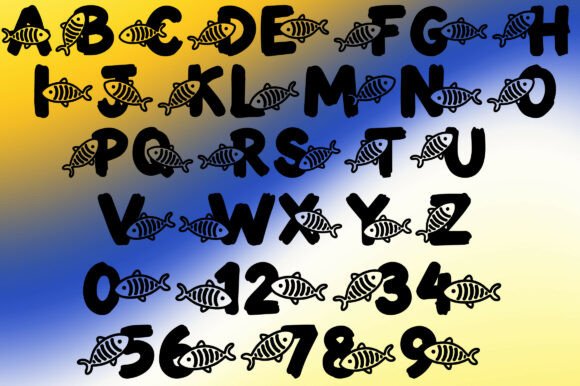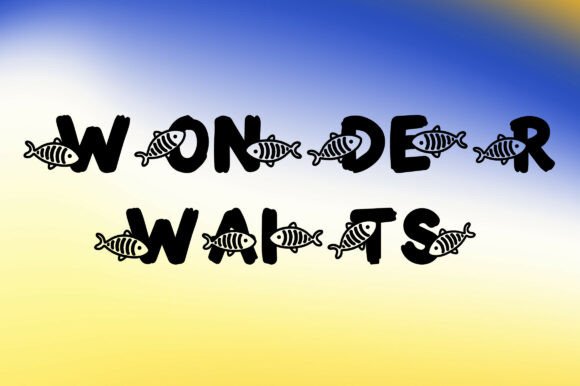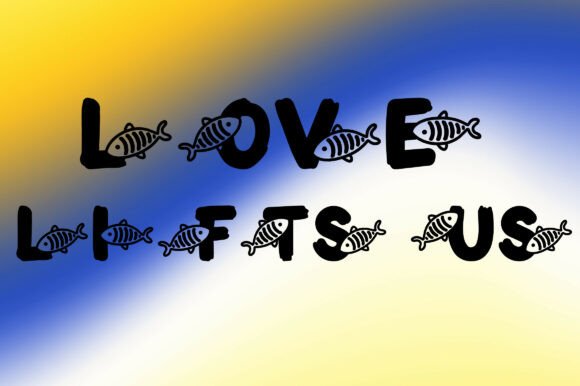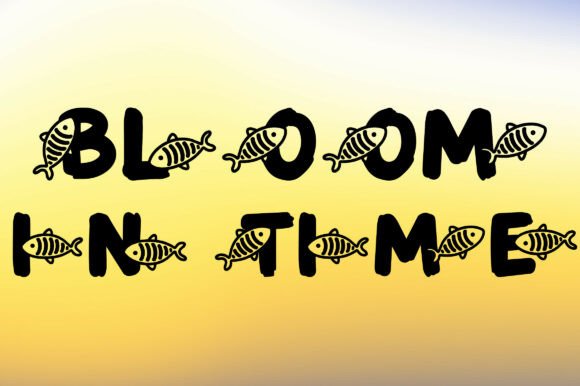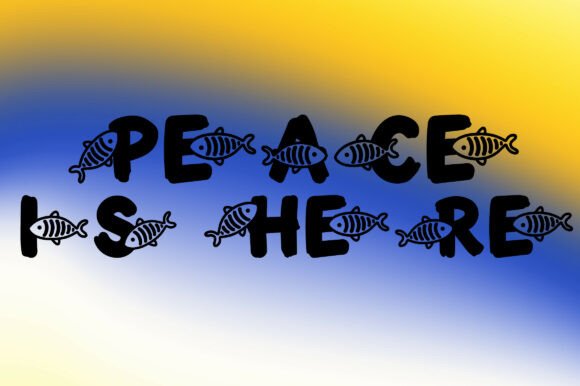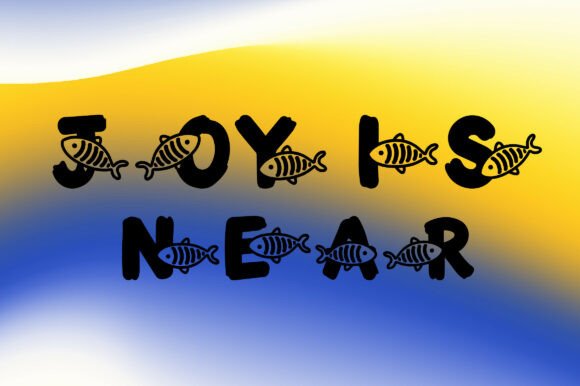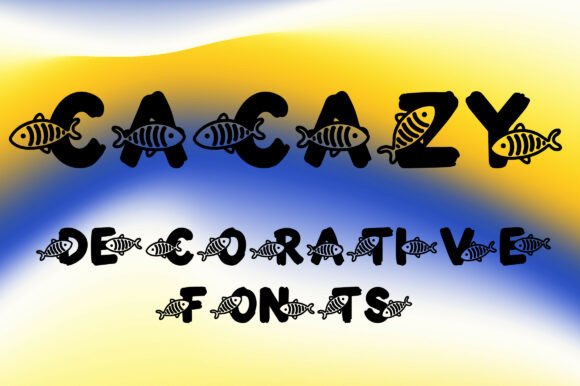
Cacazy Font: A Playful and Whimsical Typeface Inspired by Ocean Life
Are you looking for a font that adds a touch of freshness, charm, and personality to your designs? Look no further than the Cacazy Font, a wonderful and playful typeface inspired by the beauty of ocean life and creative fish-themed designs. This decorative font is perfect for designers and crafters who want to add a lively and imaginative touch to their projects.
What is Cacazy Font?
CACAZY Decorative Fish Style Fonts is a unique and fun typeface that features uppercase English letters A–Z and numbers 0–9. Its fun decorative style is inspired by the beauty of ocean life, making it perfect for projects that require a playful and whimsical touch. Whether you’re designing a logo, branding materials, posters, invitations, packaging, social media graphics, or kids’ designs, this font is sure to make a splash.
Key Features of Cacazy Font
- Playful and Whimsical Design: The Cacazy Font features a fun and decorative style that adds a touch of freshness and charm to any project.
- Uppercase English Letters and Numbers: This font includes uppercase English letters A–Z and numbers 0–9, giving you endless opportunities to express your creativity.
- Ocean-Inspired Style: The font’s design is inspired by the beauty of ocean life, making it perfect for projects that require a fun and imaginative touch.
- Multipurpose Use: The Cacazy Font is suitable for a wide range of projects, including logos, branding, posters, invitations, packaging, social media graphics, kids’ designs, and more.
Why Choose Cacazy Font?
There are many reasons why designers and crafters should choose the Cacazy Font for their projects. Here are a few:
- Unique and Eye-Catching Design: The Cacazy Font features a unique and eye-catching design that is sure to grab attention.
- Easy to Read and Understand: Despite its playful design, the font is easy to read and understand, making it perfect for use in a variety of projects.
- Customizable: The font’s design is customizable, allowing you to adjust the size, color, and style to suit your project’s needs.
In conclusion, the Cacazy Font is a wonderful and playful typeface that adds a touch of freshness, charm, and personality to any project. Its fun decorative style, inspired by the beauty of ocean life, makes it perfect for designers and crafters who want to add a lively and imaginative touch to their designs. With its key features, multipurpose use, and ease of use, the Cacazy Font is an excellent choice for anyone looking to create unique and eye-catching designs.